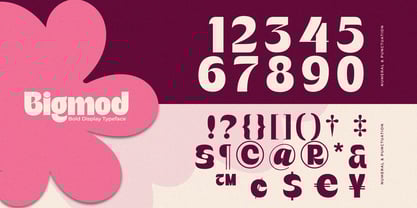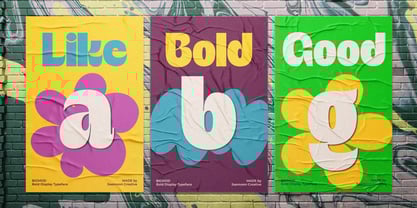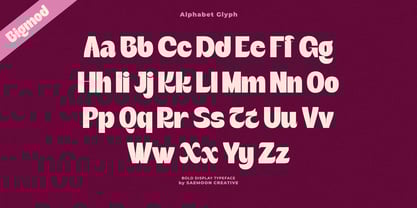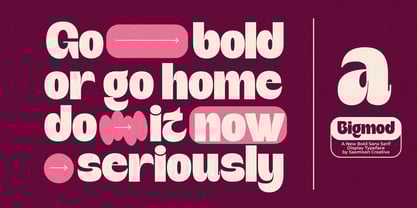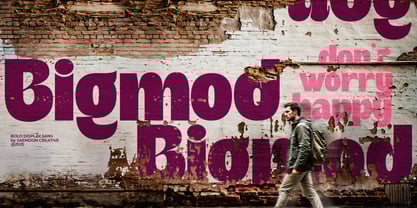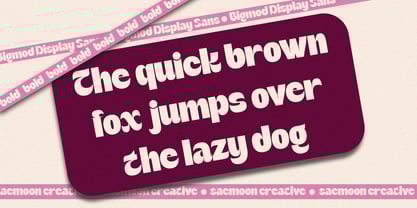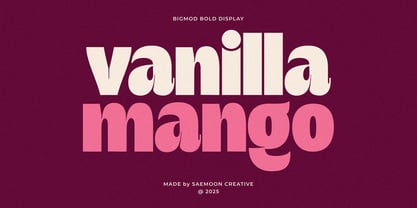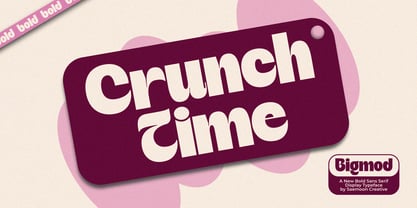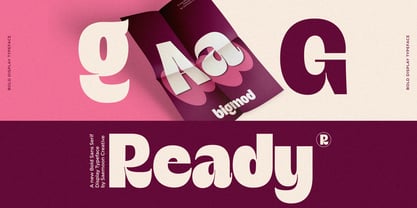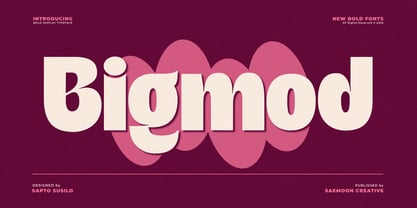
Bigmod
by Saemoon Creative
The Bigmod Font Family was designed by Sapto Susilo and published by Saemoon Creative. Bigmod contains 2 styles and family package options. More about this family
Bigmod - Bold Display Typeface Bigmod is a powerful display typeface designed to make a bold statement and capture immediate attention. With its extremely heavyweight silhouette, compact letterforms, and a dramatic contrast between solid vertical stems and smooth, flowing curves, Bigmod delivers a cheerful and energetic retro-futuristic aesthetic. Bigmod is a strong blend of dominating character and subtle finesse. Each glyph is carefully crafted to give a maximalist impression while remaining friendly and highly readable at large sizes, making it an unapologetically bold choice for standout projects. Key Features: Heavyweight Dominance: Superior thickness ensures instant visual impact, perfect for strong, eye-catching headlines. Smooth & Soft Contours: Flowing curves and gentle arcs provide a unique character and warmth, creating an attractive contrast with the solid body of the letterforms. Versatile Outline Style: Includes a highly functional Bigmod Outline variation. Use this style independently or layer it with the solid version to create dynamic, classy 3D typographic effects. High Impact Display: Specifically engineered for maximum appeal—ideal for branding, logos, posters, album covers, merchandise, and striking packaging design. Modern Retro Vibe: Inspired by the Mod and 70s era of funky typography but presented with a clean, contemporary finish. Ideal for: Titles and Headlines Logo Design and Branding Posters and Advertising Editorial Design (magazines/web) Product Packaging Add Bigmod to your font collection today and give your next design project an unforgettable dose of boldness and personality!